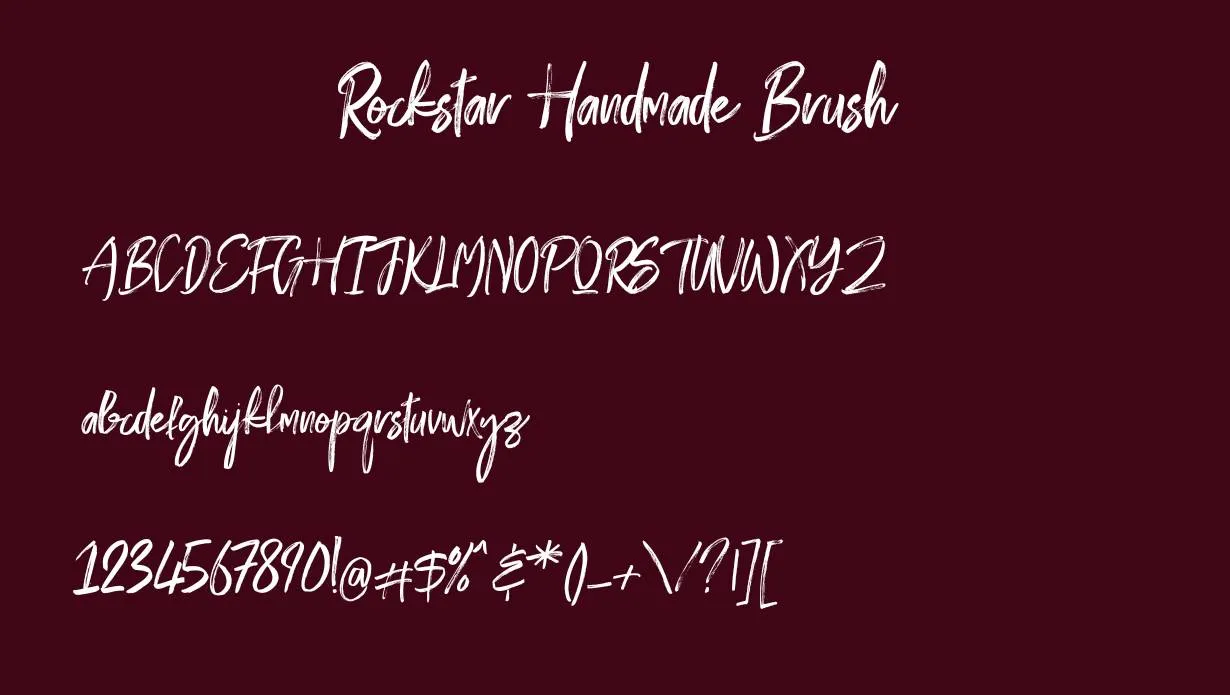
RebelBrush Creations presents the Rockstar Handmade Brush Font, a rebellious and dynamic typeface that mimics the free-flowing strokes of a brush.
This font is ideal for projects that demand a handmade, authentic feel, such as album covers, posters, or merchandise for edgy and artistic endeavors. With its bold and expressive style, Rockstar Handmade Brush Font brings a touch of rock-and-roll attitude to the world of typography.
| Name | Rockstar Handmade Brush Font |
| Designer | Efe Gürsoy |
| Style | Brush |